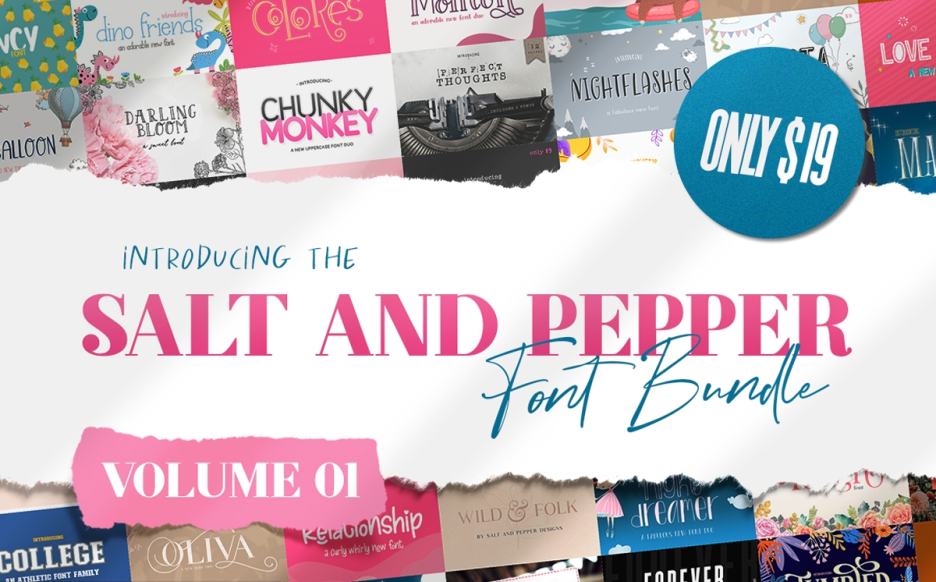
The Salt & Pepper Font Bundle – Vol 1
The Salt & Pepper Font Bundle – Vol 1 offers a curated selection of unique fonts designed to elevate your creative projects. This bundle features a diverse range of styles, including script, serif, and sans-serif fonts, each crafted with attention to detail.
• Multiple font styles: script, serif, and sans-serif
• Variety of weights for versatility
• High-quality designs suitable for various applications
• Weights: Light, Regular, Bold
Utilize these fonts for branding, logos, web design, print materials, and user interfaces to create a cohesive and professional look.